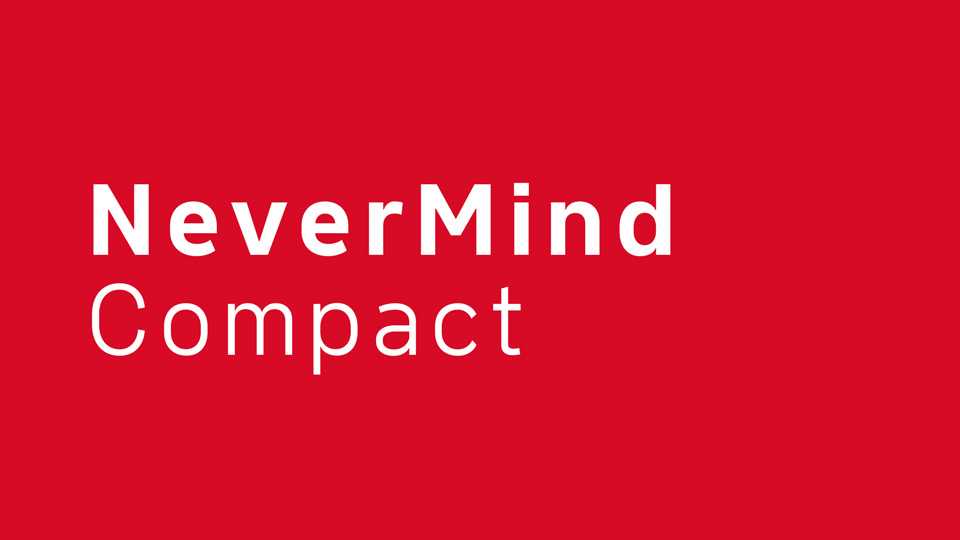
Download Nevermind Compact font, a sleek and space-efficient sans serif typeface that seamlessly balances elegance with functionality. Nevermind Compact font is designed to optimize legibility and conserve space, making it an ideal choice for projects that require a clean and compact design approach.